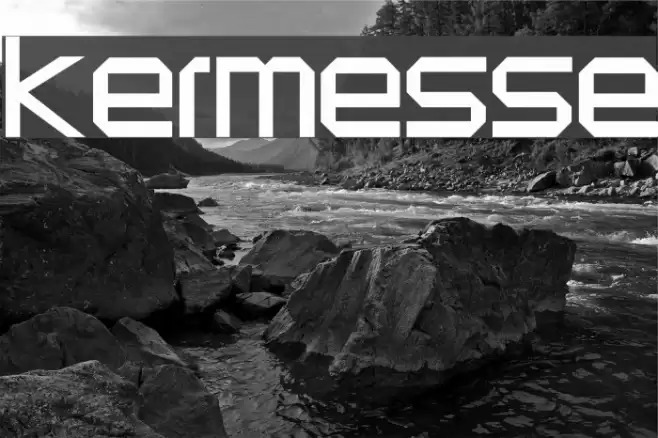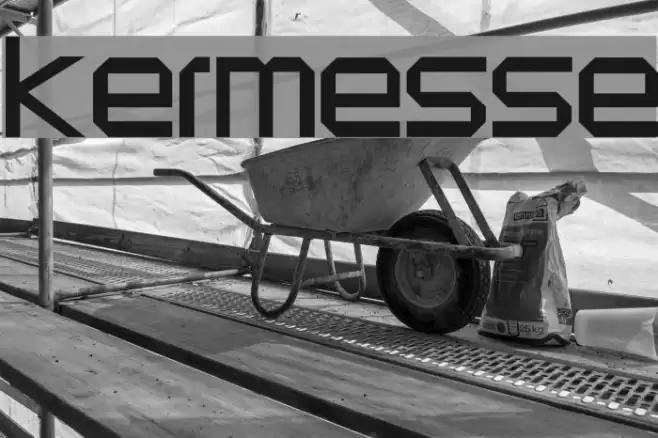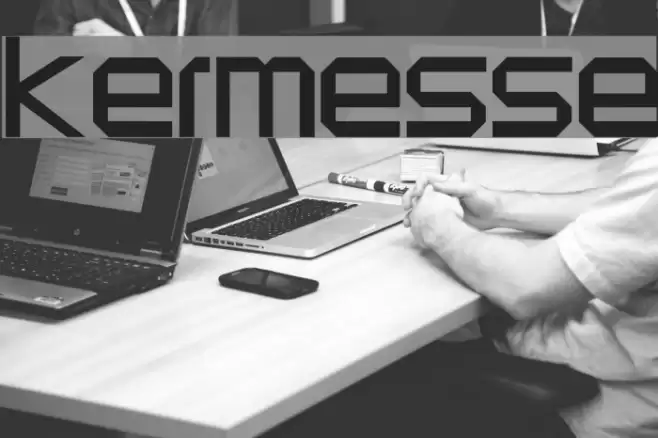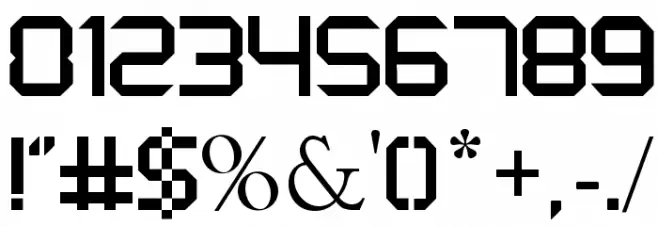
kermesse Font
kermesse Description
This font features a bold, geometric design with a modern and futuristic aesthetic. The characters are constructed with sharp angles and straight lines, giving them a distinctive, edgy appearance. The uppercase and lowercase letters maintain a consistent style, with a uniform height and width that contributes to a cohesive look. The numerals and special characters follow the same design principles, ensuring a seamless integration across all text elements. The font's structure is both robust and clean, making it suitable for a variety of design applications where a strong visual impact is desired.
A bold, geometric font with a modern, futuristic style from Uncategorized fonts.
- Proposed Projects: Ideal for technology branding, sci-fi themed designs, video game interfaces, and modern advertising.